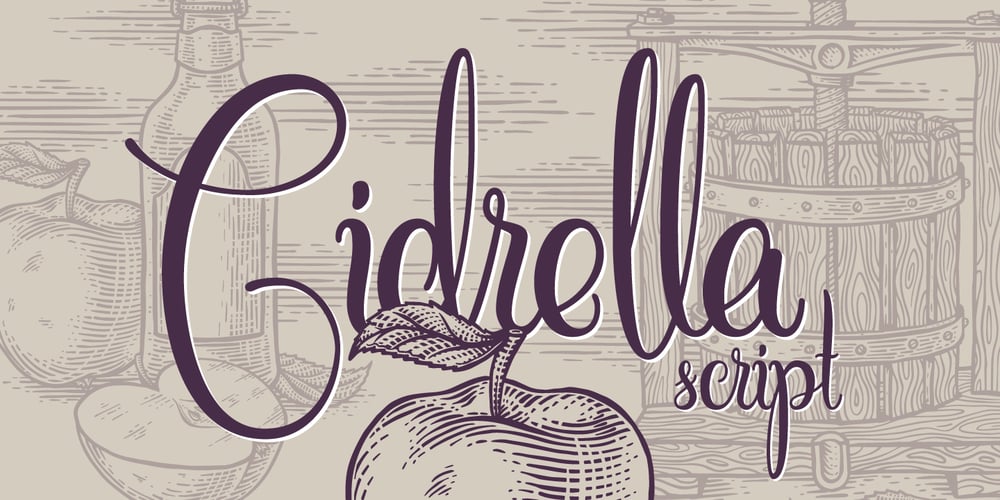
Cidrella
Cidrella font
Cidrella Font Family was designed by Gleb Guralnyk and published by Gleb Guralnyk. Cidrella contains 1 styles and family package options. Presenting an elegant calligraphic script font named “Cidrella”. It’s a cider brew themed typeface, perfectly suited for label design and stuff. This font has a lot of ligatures and multilingual support (check out the screenshots with available characters). Thank you and have a nice day!